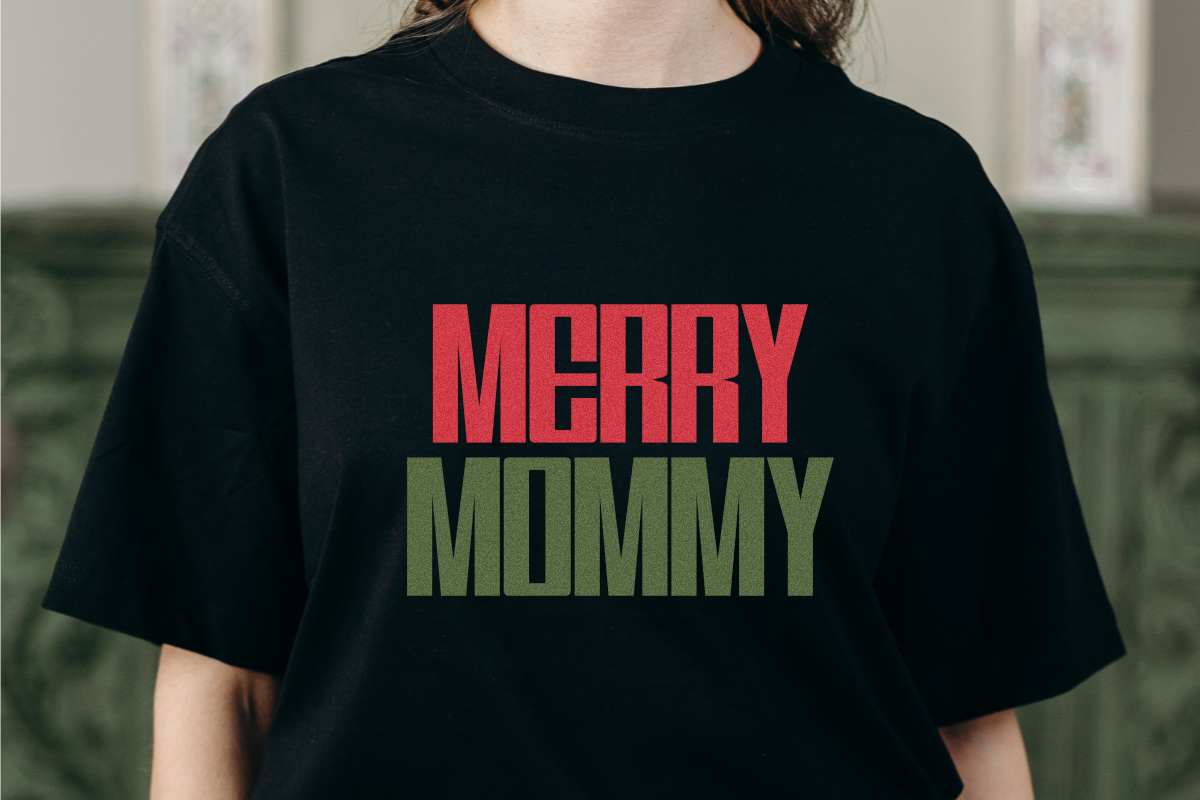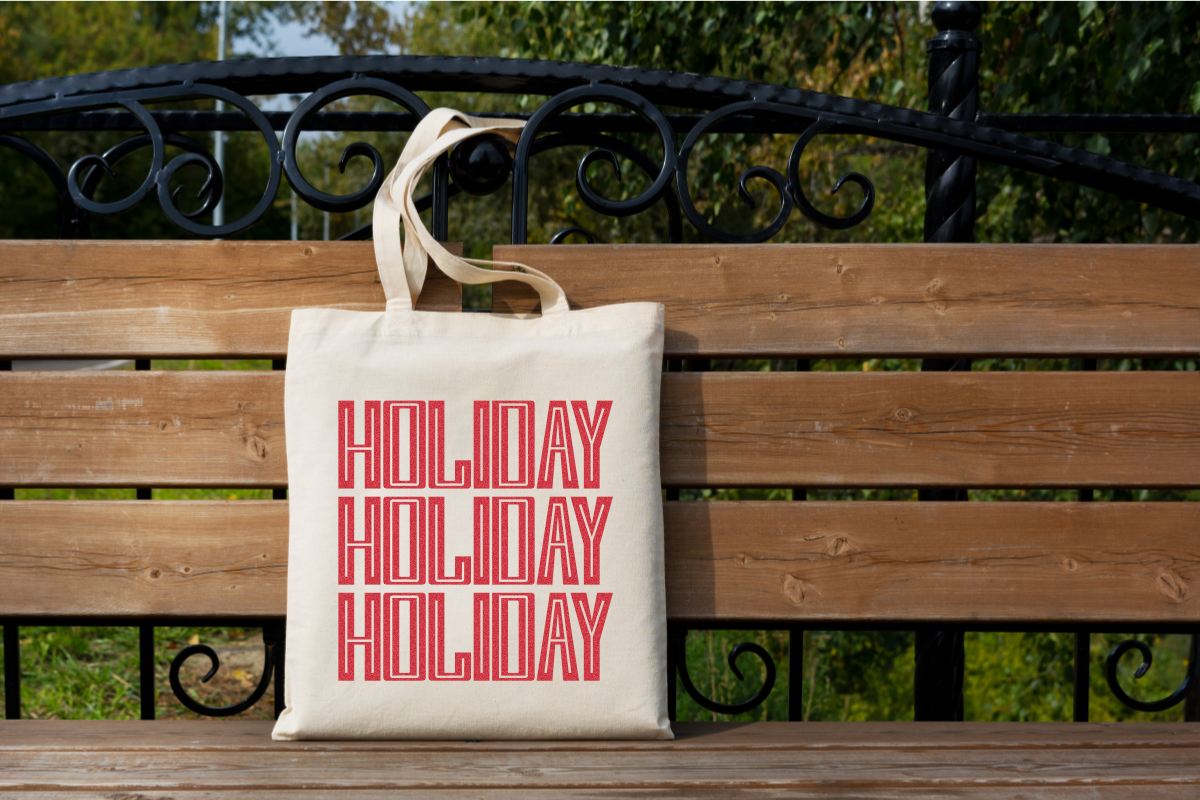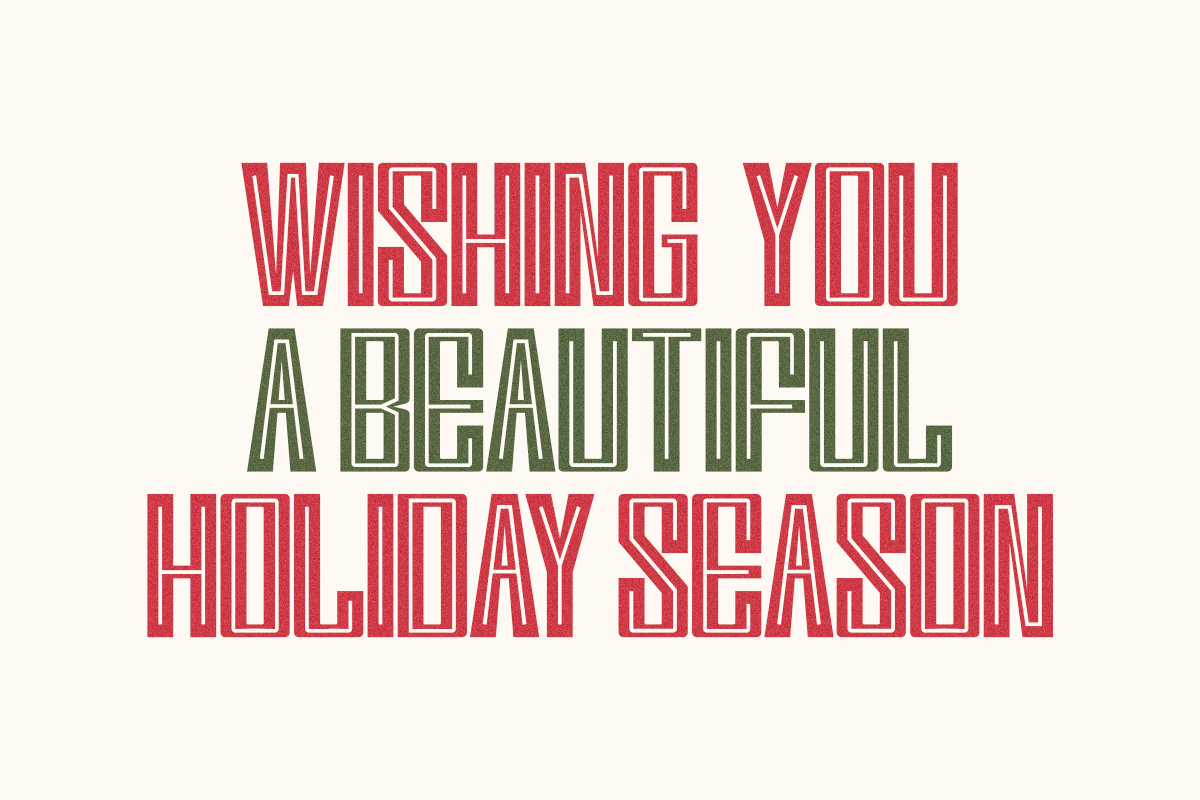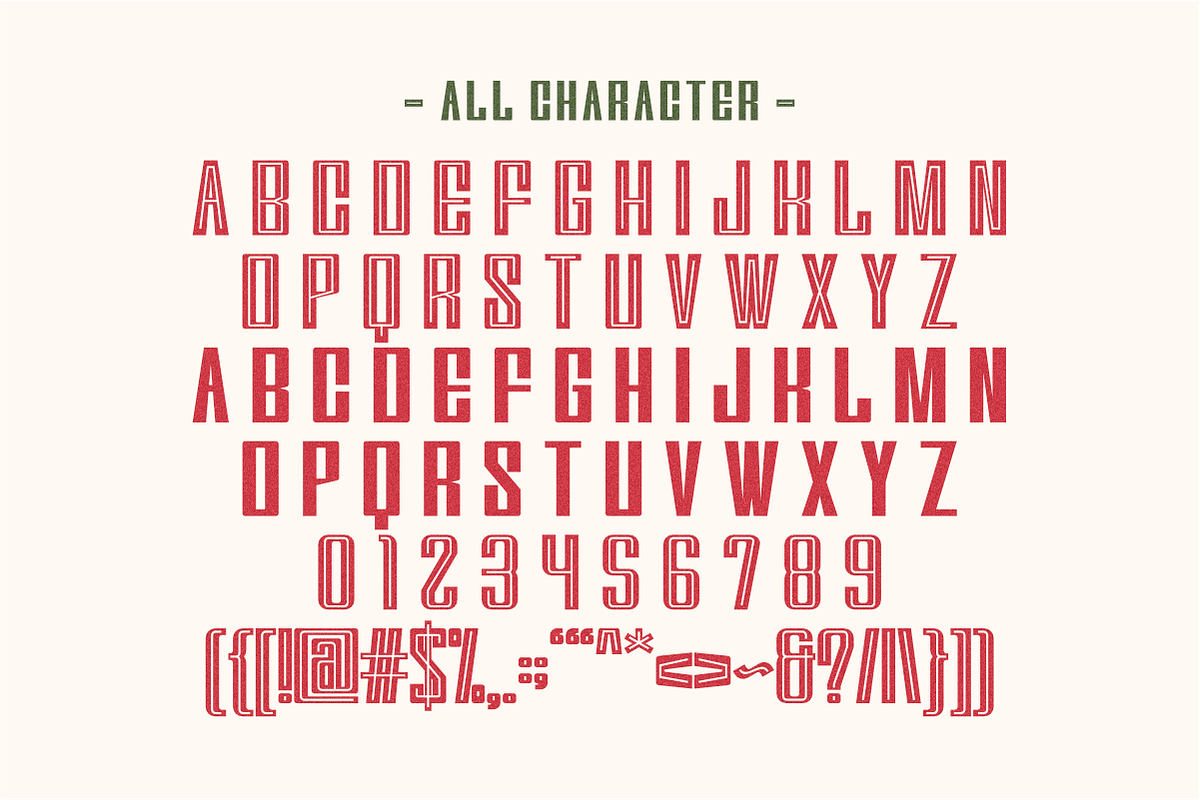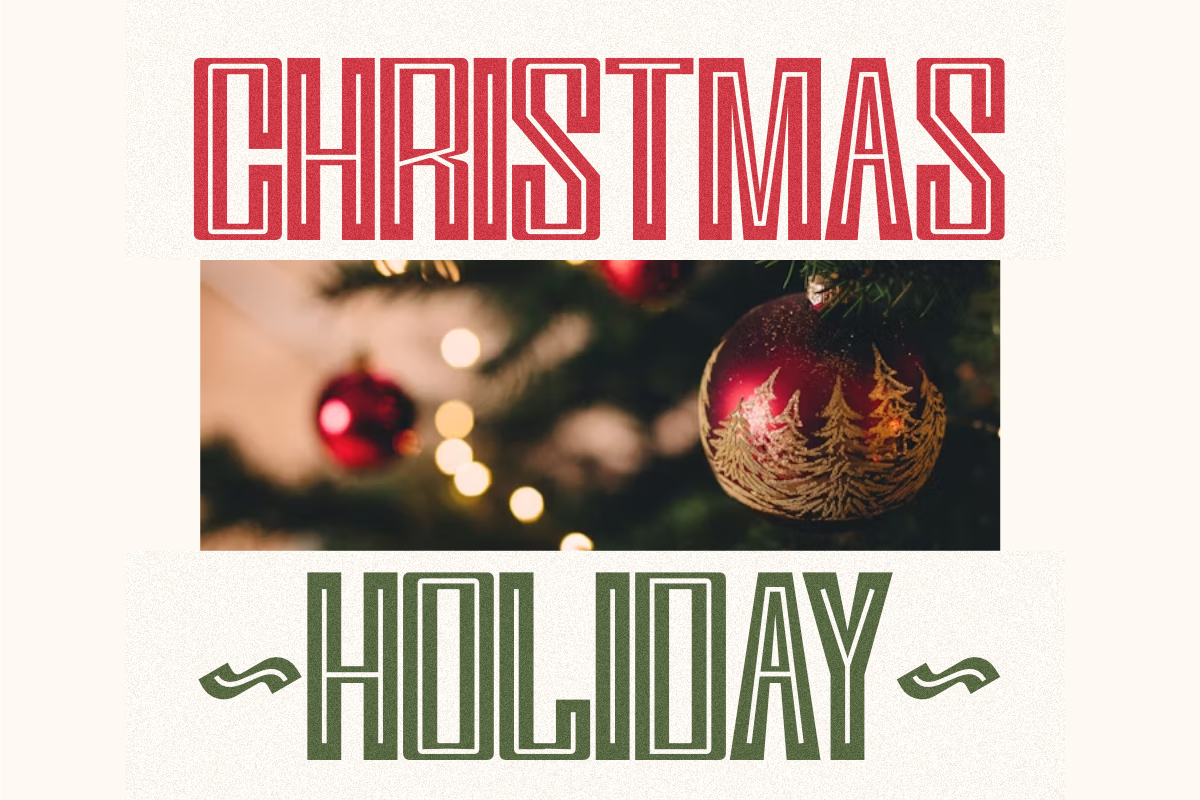
Dancing Holiday - Outline Display
Dancing Holiday is a captivating and cheerful Outline Display Typeface that channels bold retro aesthetics into a festive design. Featuring an ultra-condensed, tall structure, this font is meticulously crafted for striking, layered designs that demand attention. It's the ultimate choice for seasonal apparel, high-impact Christmas posters, and all your winter event branding needs. The unique double-line style delivers a nostalgic yet modern punch, ensuring your holiday marketing materials—from social media graphics to custom merchandise—possess a charming, instantly recognizable visual identity for the joyful December season and beyond.